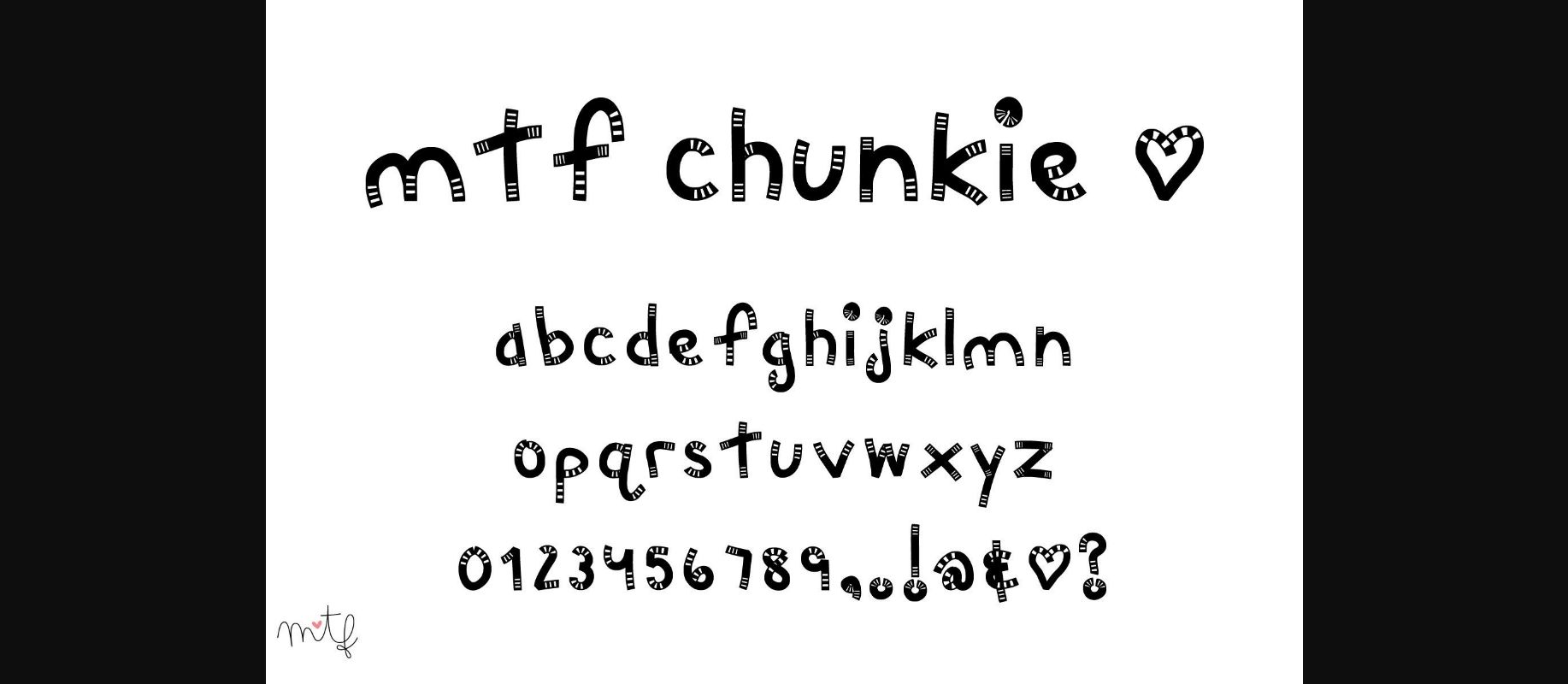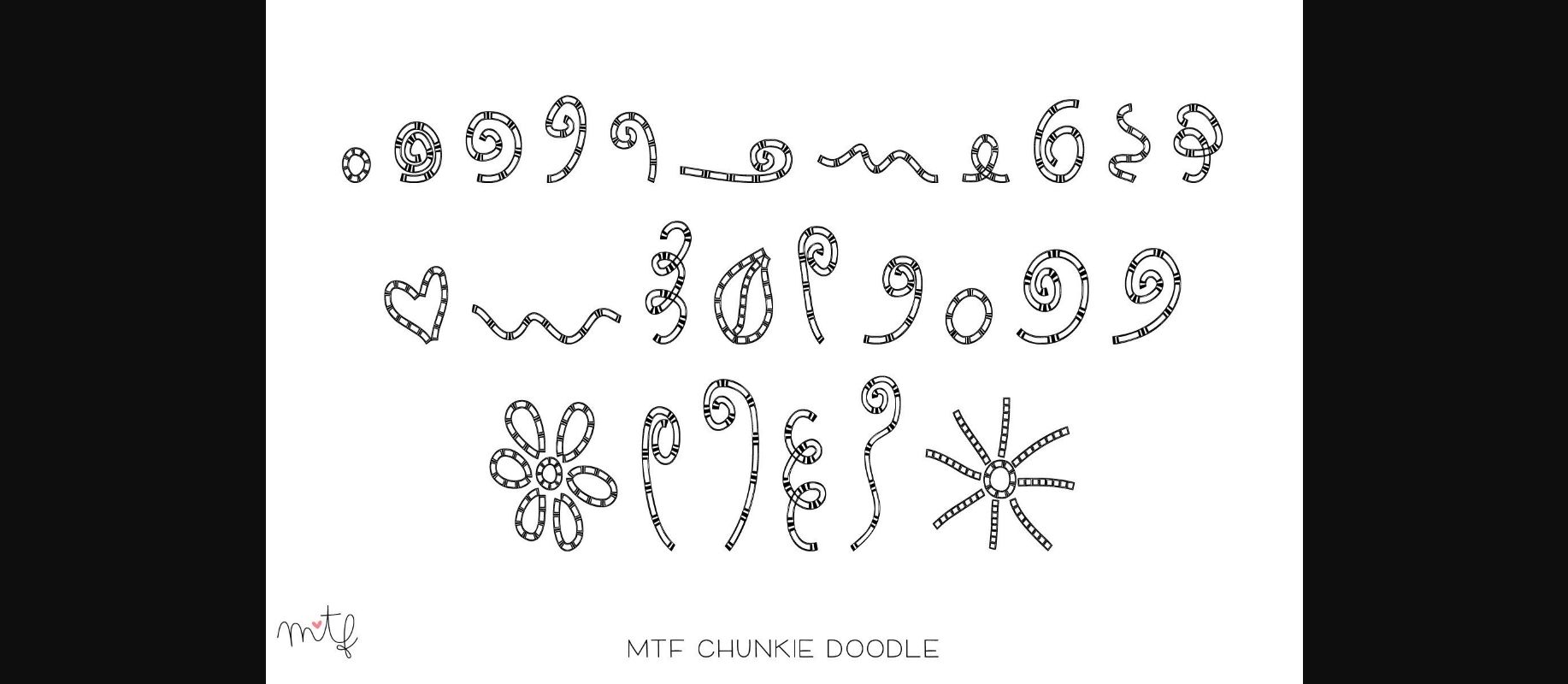
About Chunkie Duo Font
Chunkie is a sweet and playful duo font (decorative and dingbats) suitable for those moments when you feel happy and want to make something utterly adorable. It comes with bold-enough characters to be used on front pages but is also great for your journal!